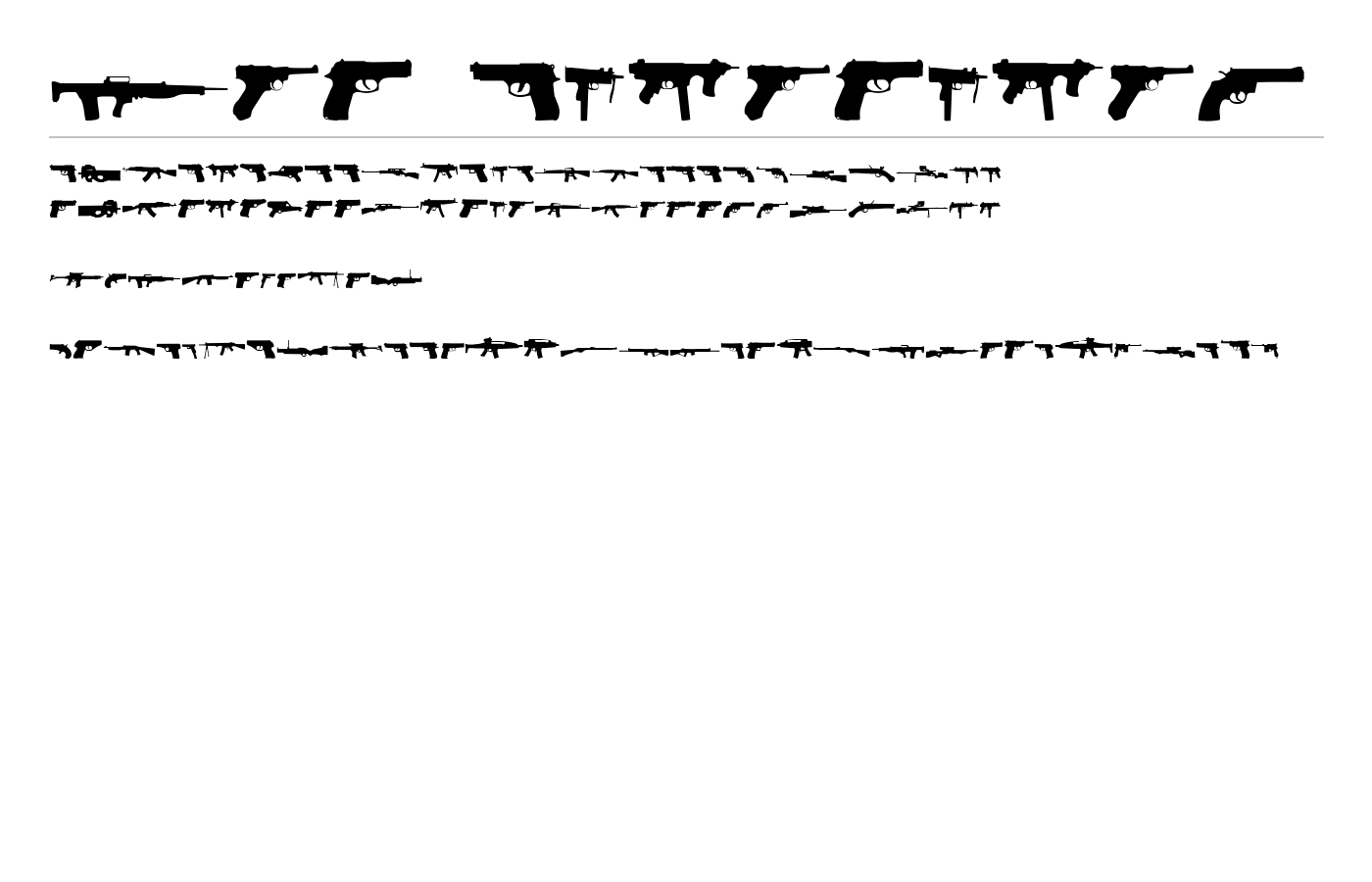
2nd Amendment Font is a bold, symbolic typeface composed entirely of silhouette gun shapes, creating a striking and unconventional visual impact. Its unique design makes it ideal for use in custom logos, posters, or graphic projects where a strong, provocative statement is desired, appealing to themes of defense, rights, or military. This font works best in large sizes where its detailed weapon icons can be clearly recognized and appreciated.
2nd Amendment Font
About 2nd Amendment Font